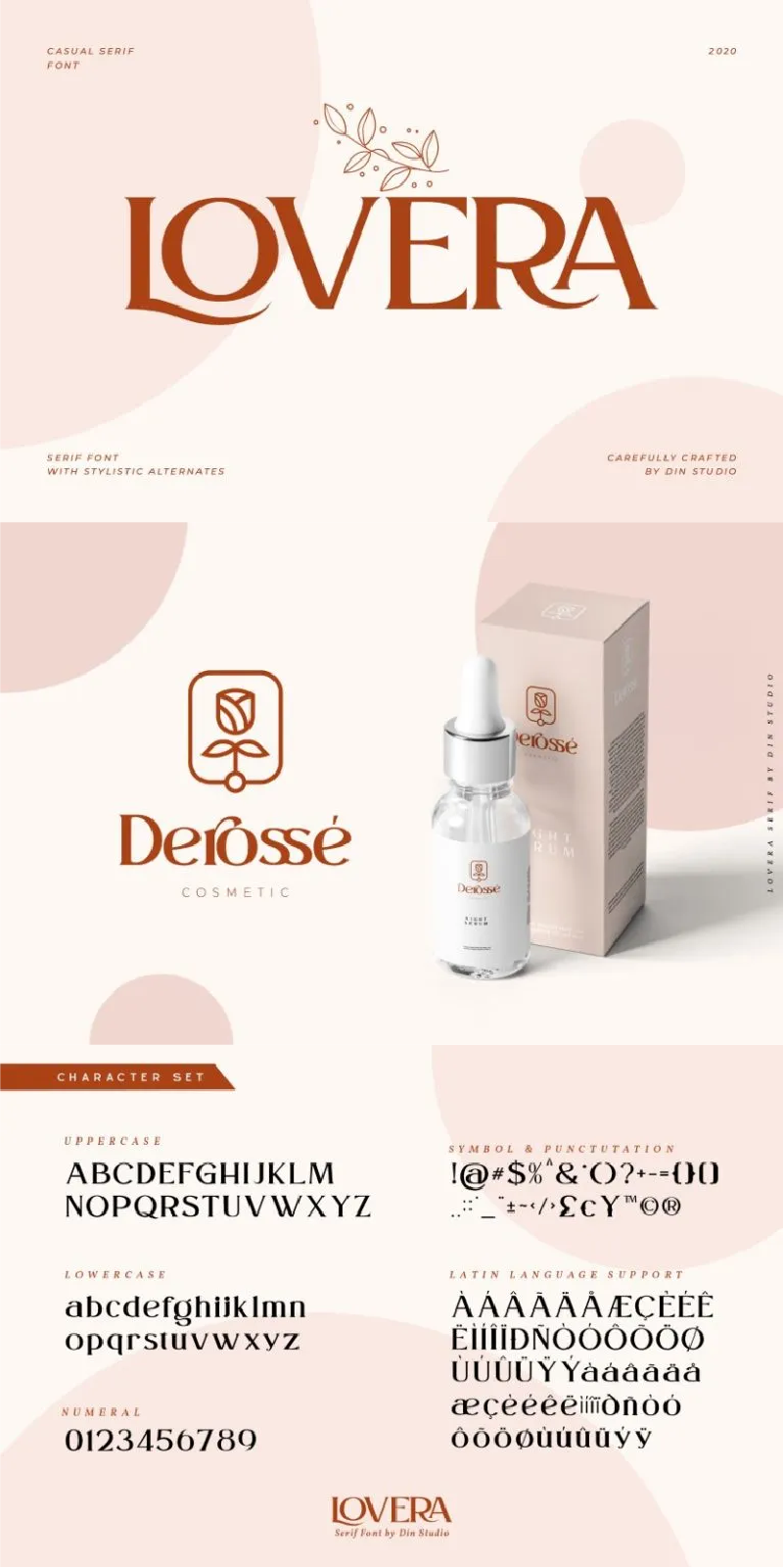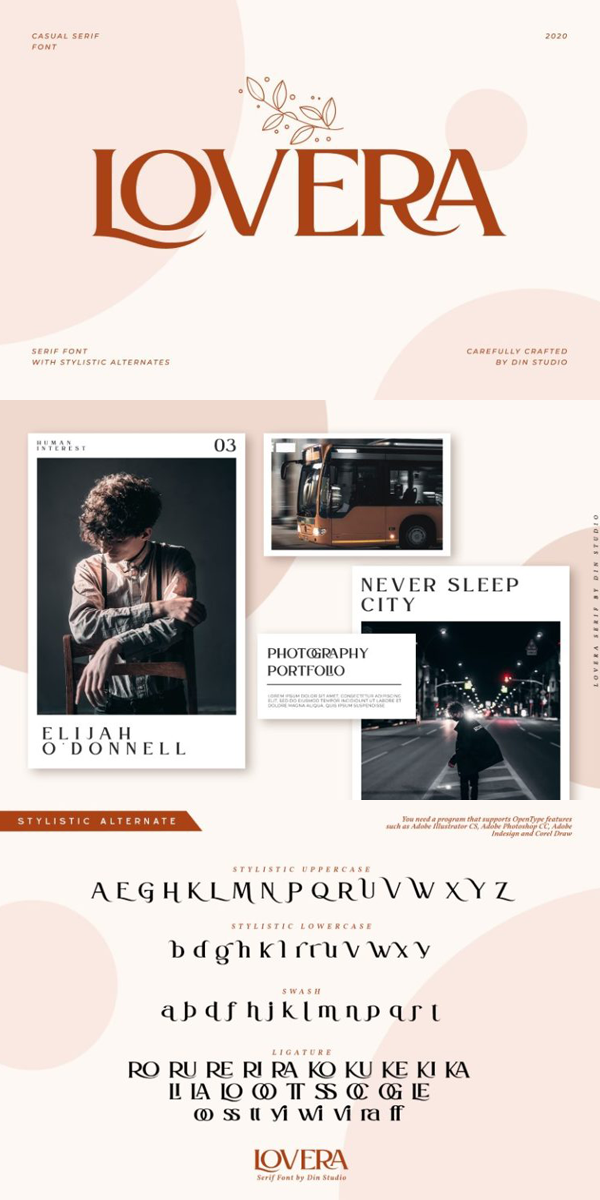
Lovera Font
About Lovera
Lovera, an elegant serif font made for any professional project brandings which is best used for brandings, merchandising, cards, packaging, logos, printings, wedding invitations and quotes. Every letter has a unique and beautiful touch. See the previews above to get some inspiration on how you can use them. Happy Designing!
-Many Swashes
Numerals and Punctuations